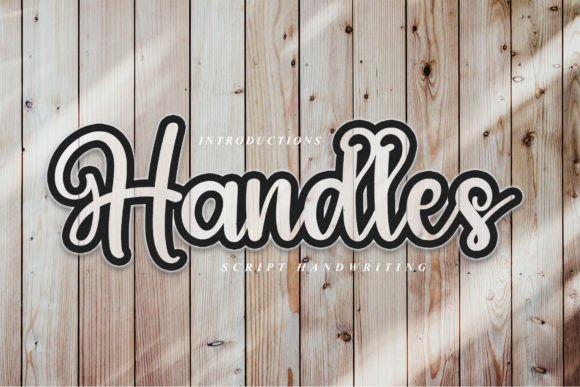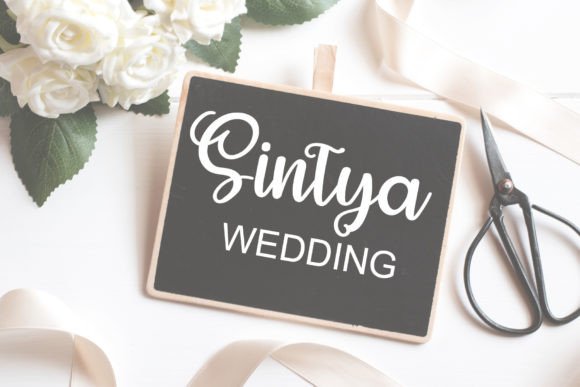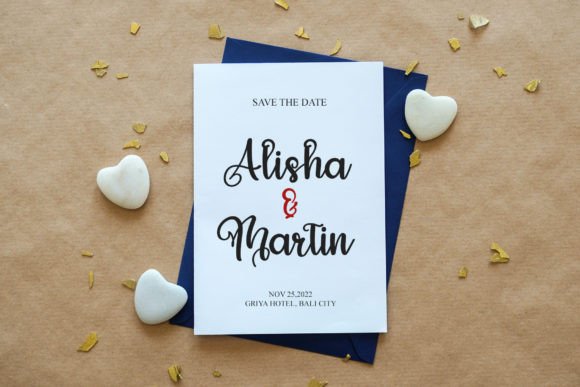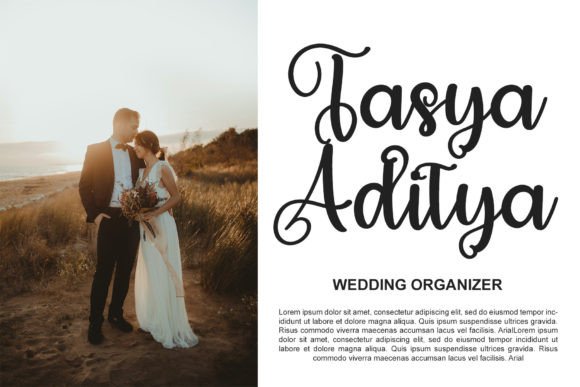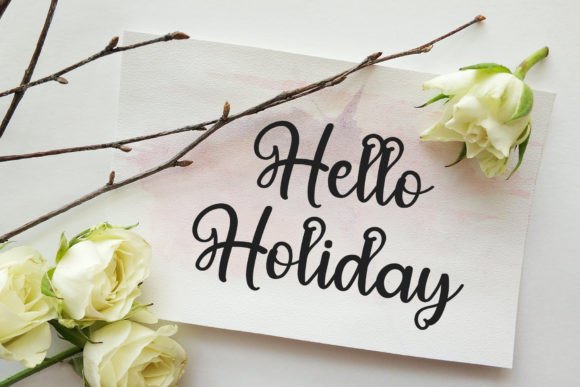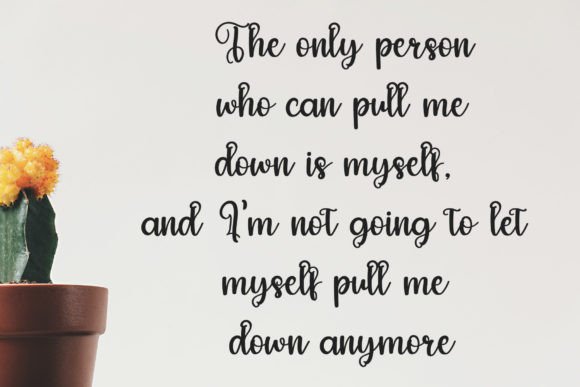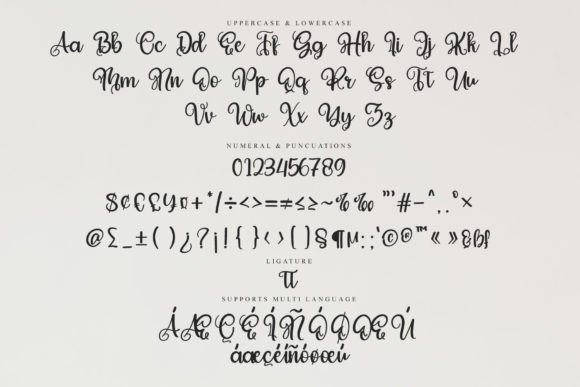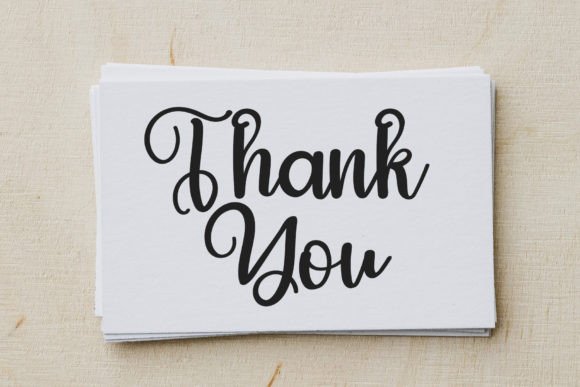
Handles Font
About Handles Font
Add a Romantic Touch with the Handles Font
Looking for a font that brings warmth and sweetness to your designs? The Handles font download is a charming cursive handwritten typeface that offers both elegance and emotion. Its fluid strokes and soft style make it an ideal choice for projects that need a gentle, heartfelt feel.
Perfect for Invitations, Cards, and More
Whether you’re designing wedding invitations, thank you cards, or personalized gifts, Handles adds a romantic and joyful accent. It’s also perfect for social media posts, logos, stationery, and branding where a soft and inviting tone is needed.
Easy to Use and Beautifully Balanced
Handles is not just beautiful—it’s also practical. Its well-balanced curves and flowing structure ensure great readability across various formats. From digital graphics to print materials, this font stands out without overpowering the message.
Fully Accessible and Versatile
Embrace the joy of cursive with the Handles font download—a sweet and stylish handwritten font that brings emotion and creativity together.